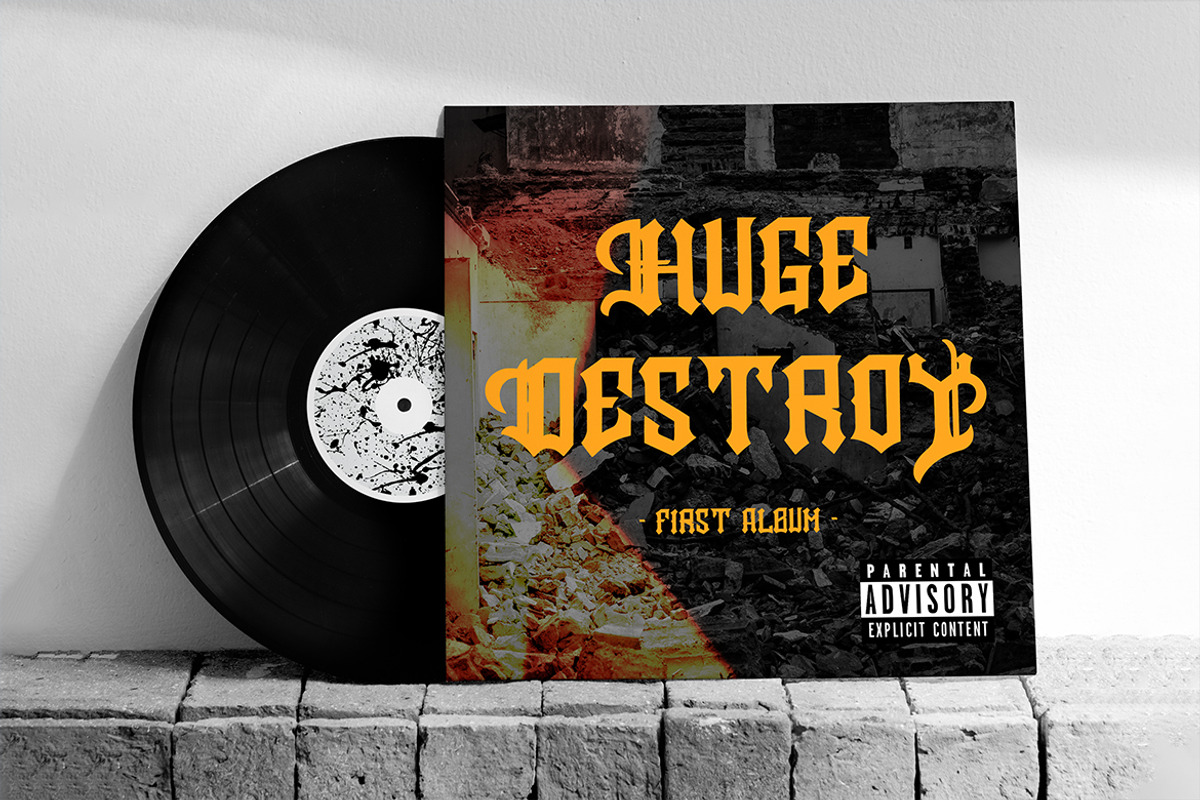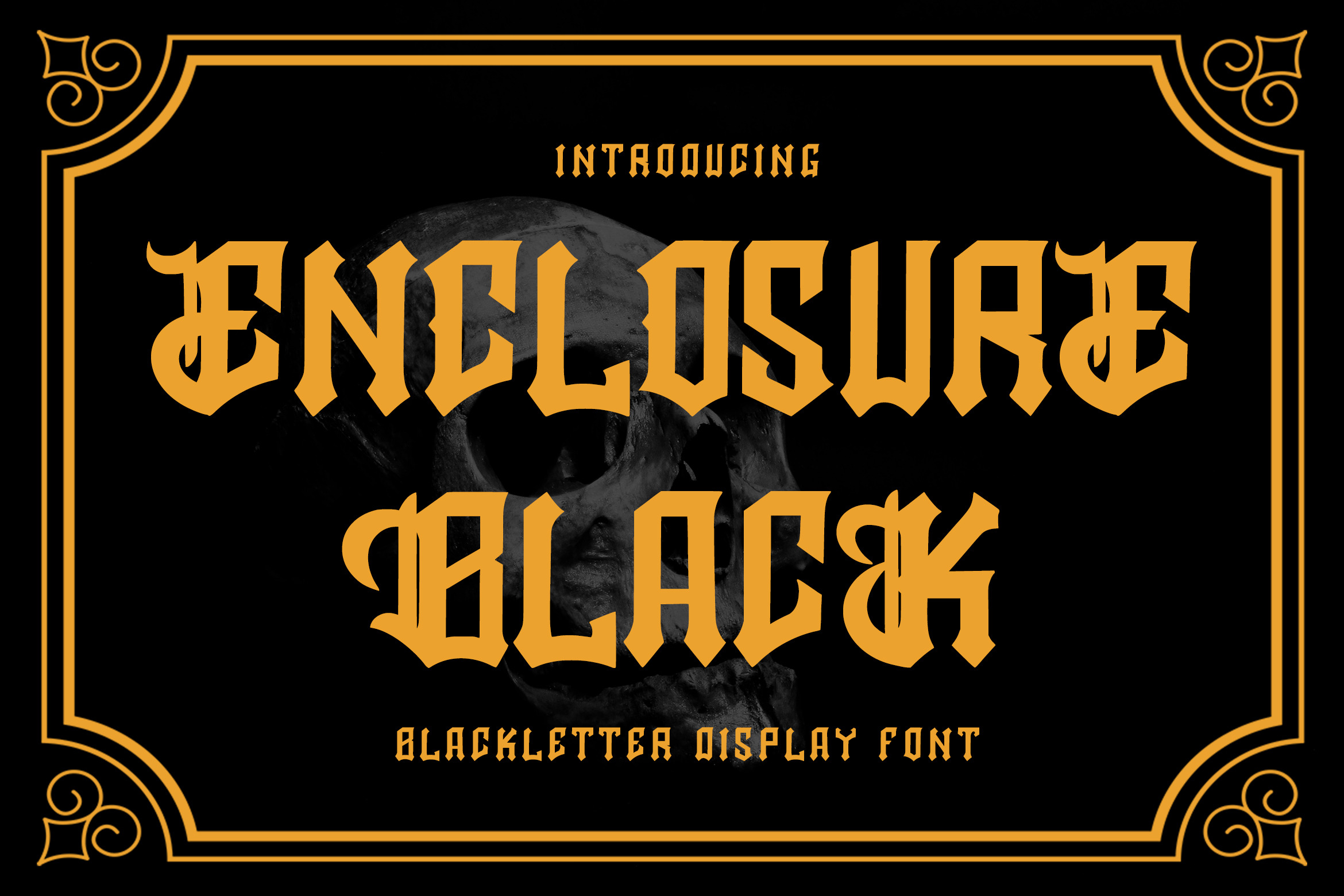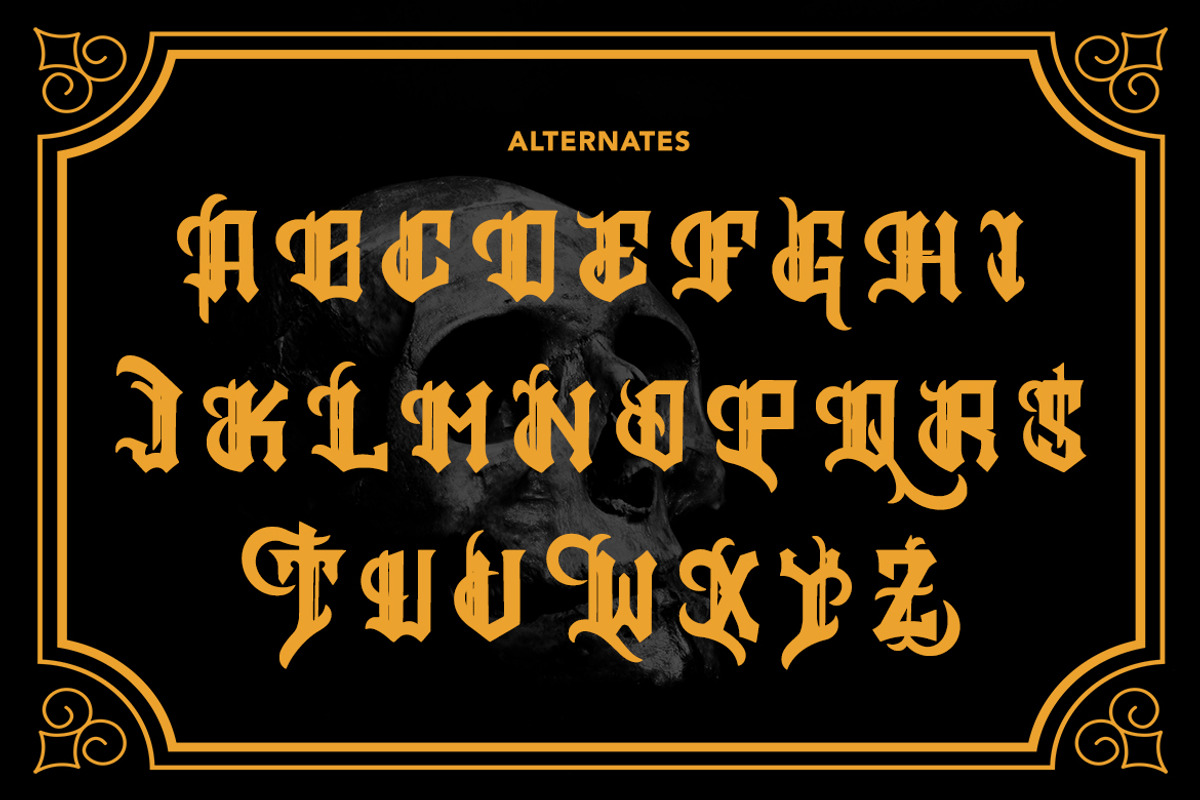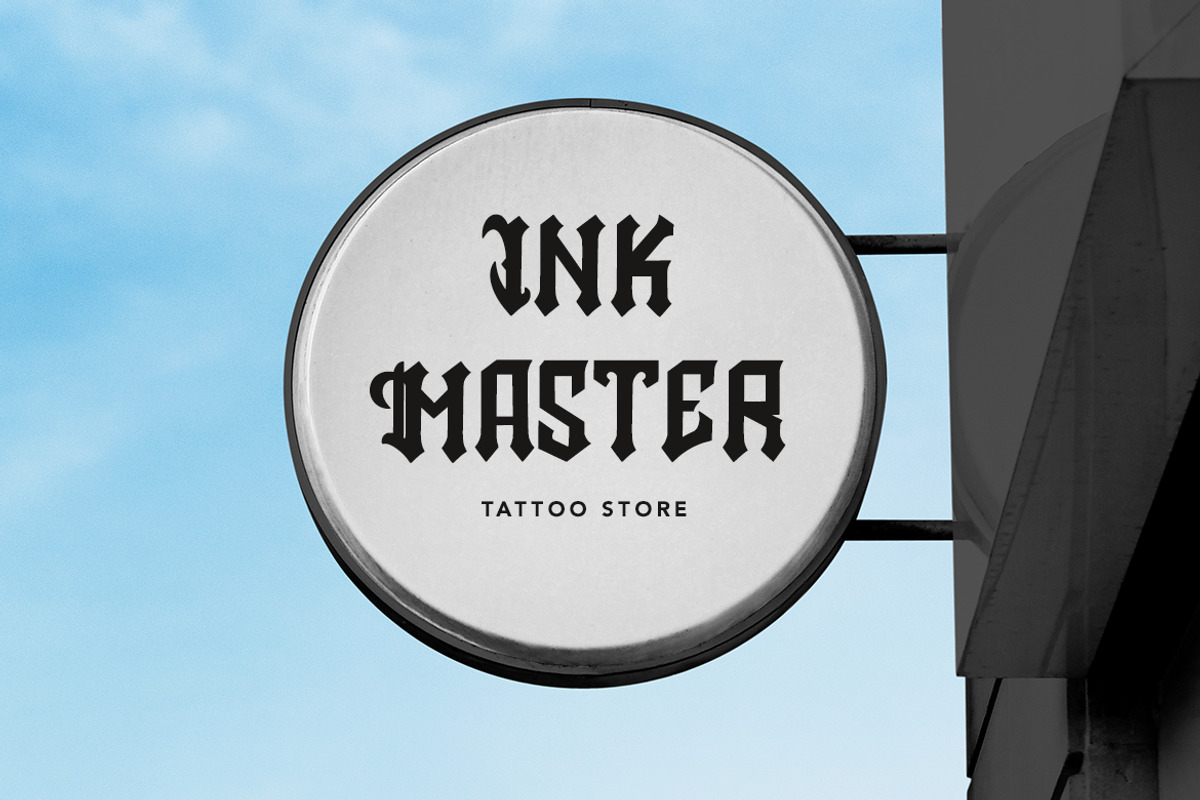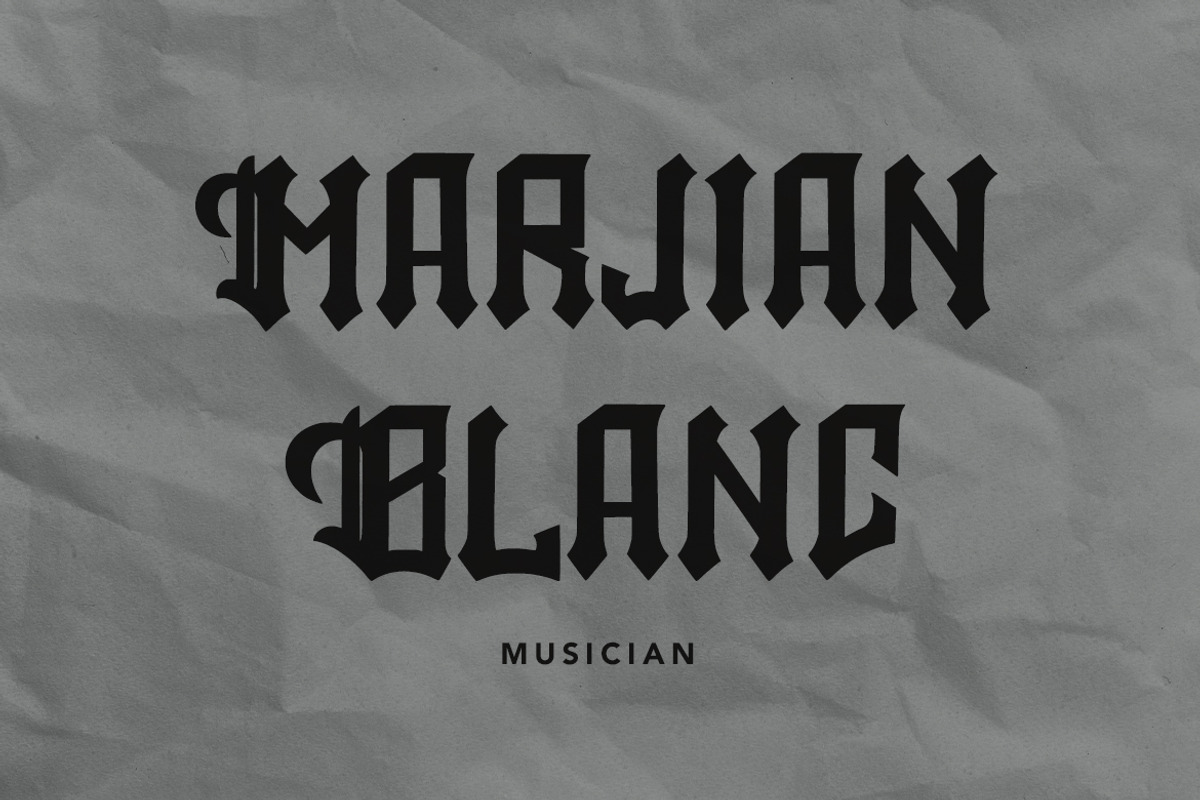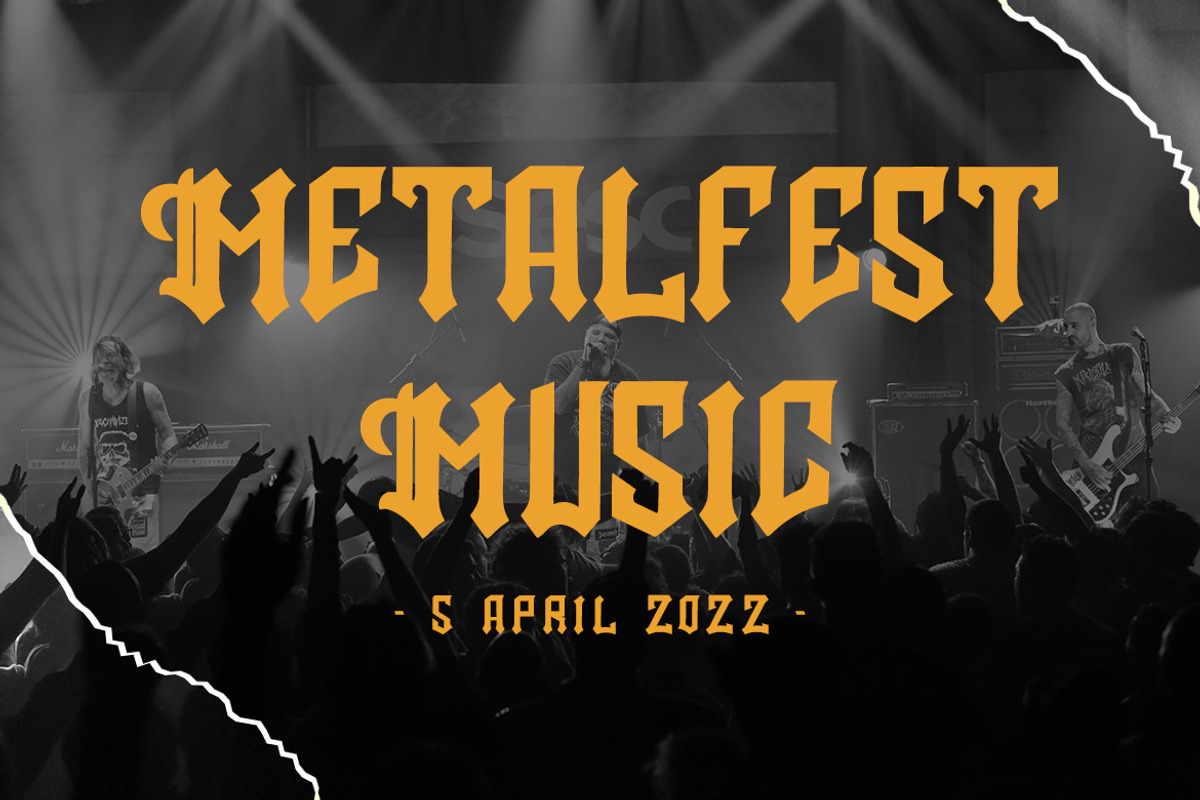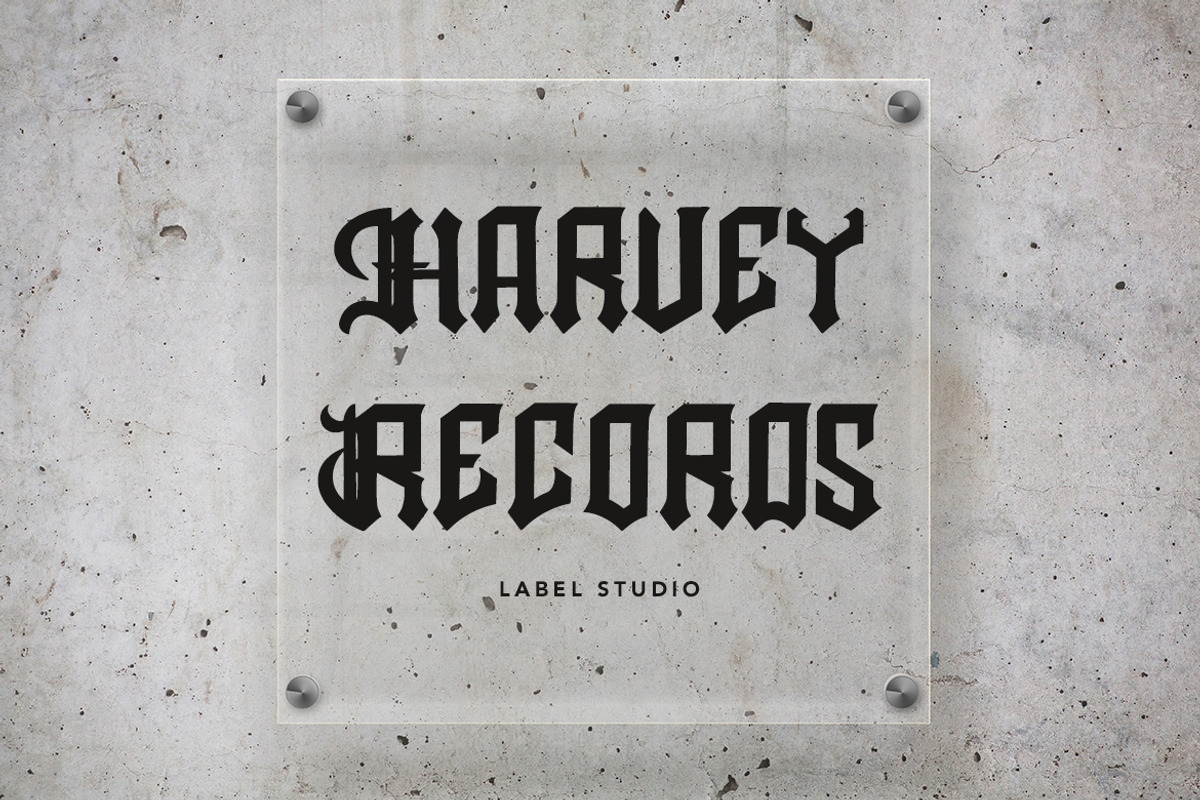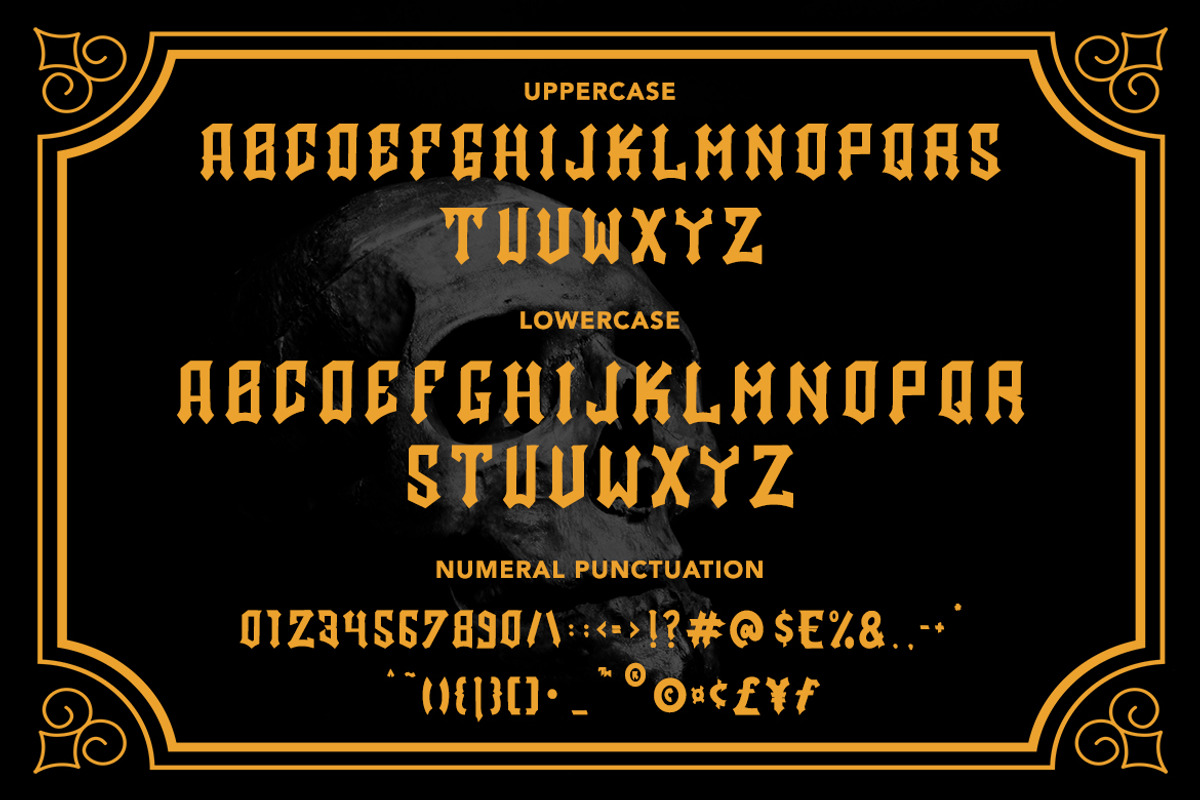
EnclosureBlack - Blackletter Font
EnclosureBlack - Blackletter Display Font contains a lowercase, uppercase, symbol, and also supports multi-language. There’s a lot of ligature in this font. EnclosureBlack - Blackletter Display Font also comes with ligatures, stylistic alternates and many more. this font suitable for fashion, branding, catalog and other design that you want.